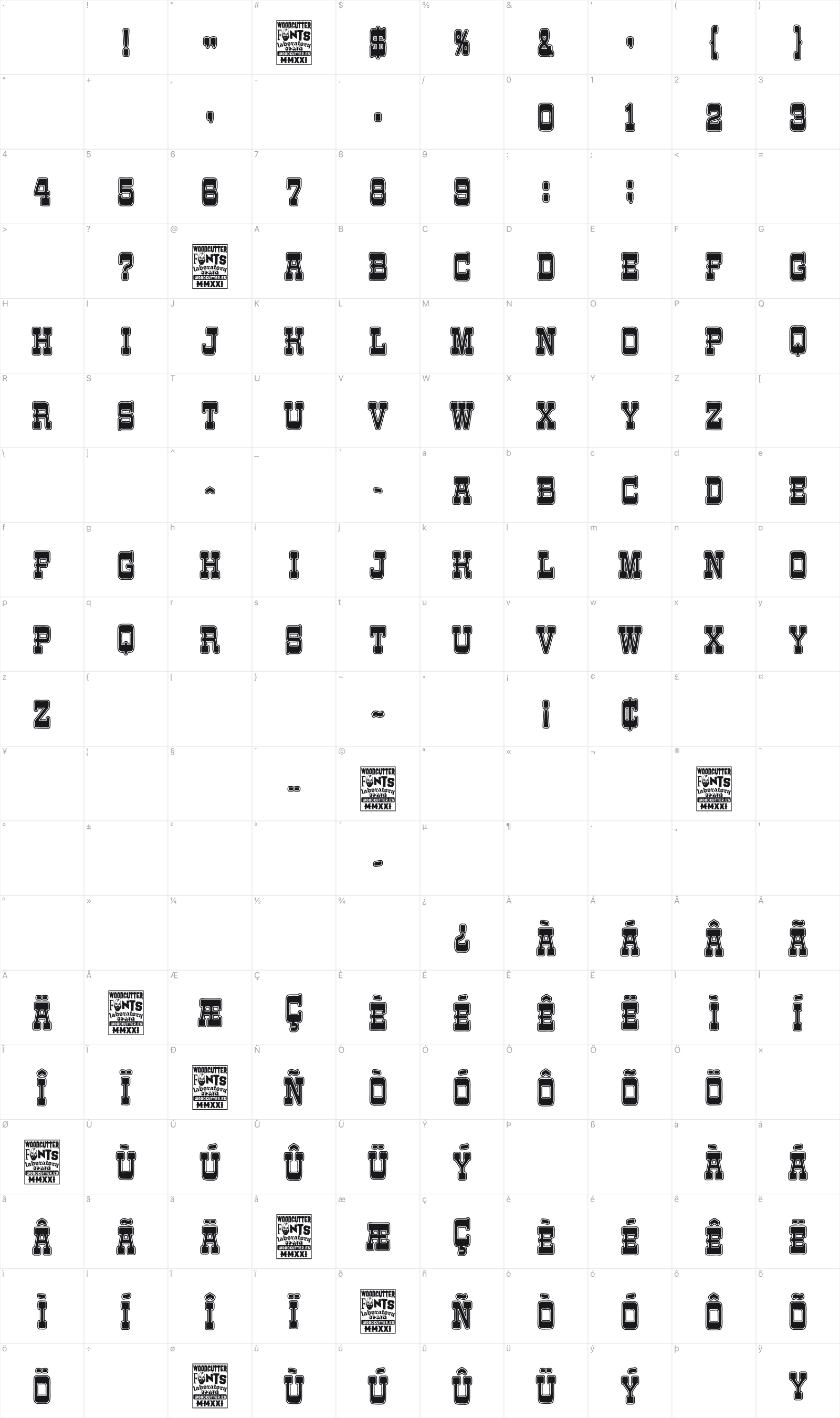
Cafetería España
Cafetería España is a heavy outlined slab-serif by Woodcutter with a bold, blocky structure and a layered inline effect that recalls vintage diner signs and sports lettering. The rounded corners on the thick stems and chunky serifs soften what would otherwise be a purely industrial slab, landing it somewhere between Americana roadside and collegiate athletics. It carries a lot of personality at large sizes.